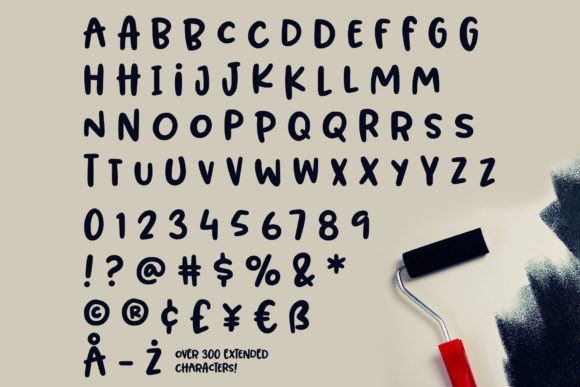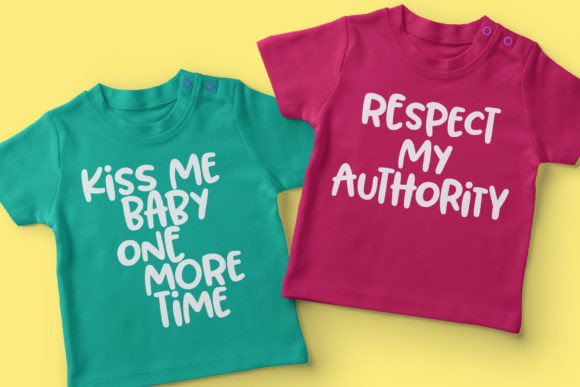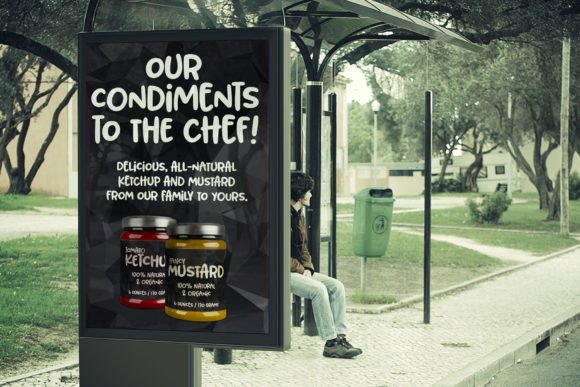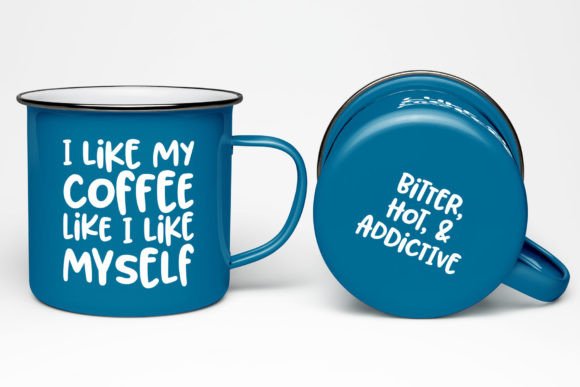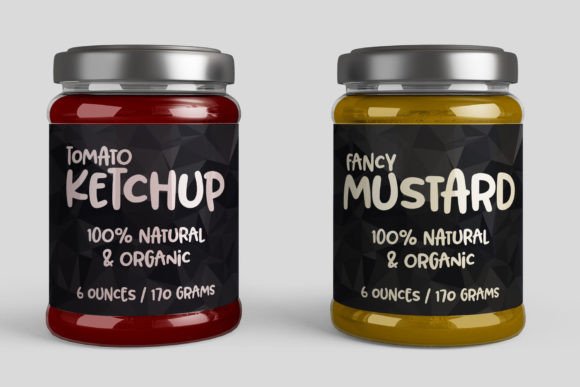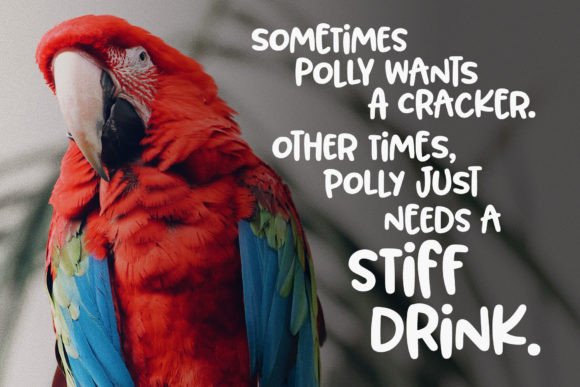
Introducing Blorp! Font: A Funky and Versatile Typeface for Designers and Crafters
Meet Blorp!, a unique and playful font that is sure to capture your imagination. The story behind its name is as fascinating as the font itself. According to its creator, the font was initially assigned a different name, but it was during a moment of drowsiness that the name “Blorp!” came to mind. And so, this quirky font was christened.
The creator decided to test the name by creating a sample image, and the result was a delightful font that is both visually appealing and highly versatile. Blorp! is extensively edited for super-smooth lines and curves, making it perfect for cutting machines like Cricut or Silhouette. However, its uses don’t stop there – it’s also ideal for print projects, logos, branding, and any other design project you can think of.
A Funky Mix of Letter Sizes and Heights
One of the standout features of Blorp! is its funky mix of letter sizes and heights. This unique characteristic allows you to create visually interesting and dynamic text arrangements. The font also includes two sets of uppercase letters, which can be mixed and matched to create a playful, irregular look. For example, you can combine letters in different sizes and heights to create a JuSt LikE tHIs effect, and the result will still be stunning.
Extensive Language Support
Blorp! is not just a pretty font; it’s also highly functional. It includes over 300 extended Latin characters, providing language support for a wide range of languages, including but not limited to:
- Catalan
- Czech
- Danish
- Esperanto
- Estonian
- Finnish
- French
- Gaelic
This extensive language support makes Blorp! an excellent choice for designers and crafters who work with international clients or want to create content for a global audience.
Blorp! is a font that can be used in a variety of design projects, from digital files to print materials. Its smooth lines and curves make it perfect for cutting machines, while its playful and irregular look makes it ideal for creative projects. Whether you’re a designer looking for a unique font for a client’s logo or a crafter creating custom vinyl decals, Blorp! is sure to inspire.
Tips for Using Blorp!
To get the most out of Blorp!, here are a few tips:
- Experiment with different letter combinations to create a unique look.
- Use Blorp! in combination with other fonts to create a contrasting effect.
- Take advantage of the font’s language support to create content for international audiences.
- Use Blorp! for both digital and print projects, from social media graphics to custom vinyl decals.
Blorp! is a one-of-a-kind font that is sure to capture your imagination. Its unique blend of smooth lines, funky letter sizes, and extensive language support make it an excellent choice for designers and crafters. Whether you’re looking for a font for a specific project or just want to add a new creative tool to your arsenal, Blorp! is definitely worth checking out.
So why not give Blorp! a try? With its versatility, playfulness, and extensive language support, it’s sure to become a favorite in your design toolkit.